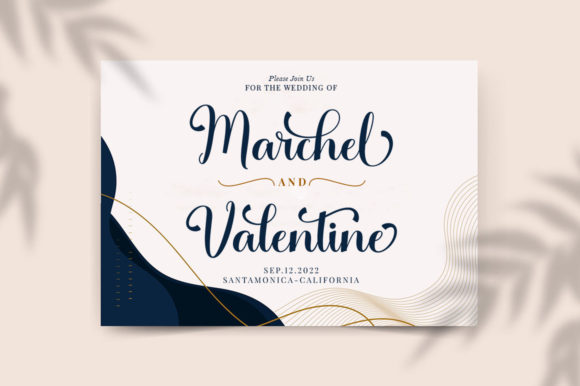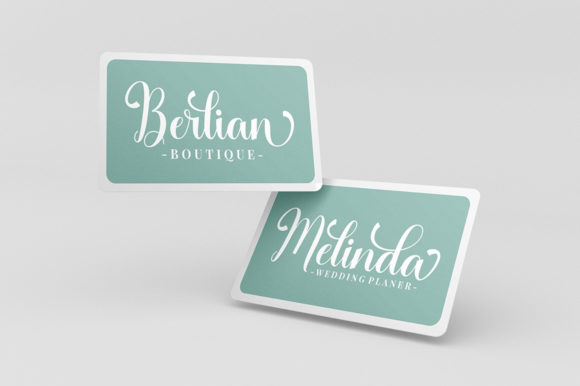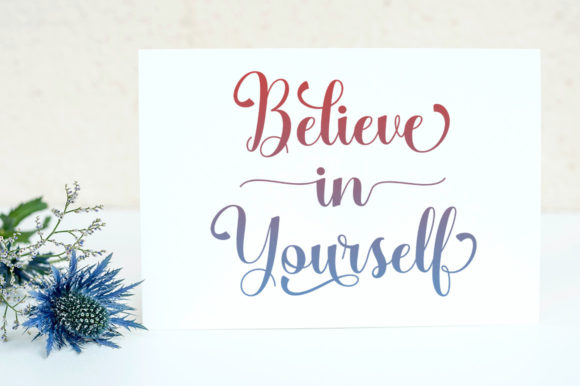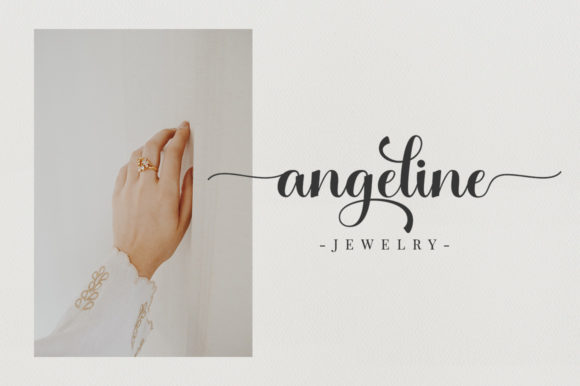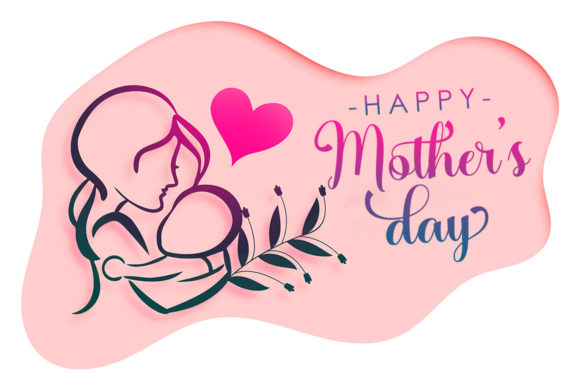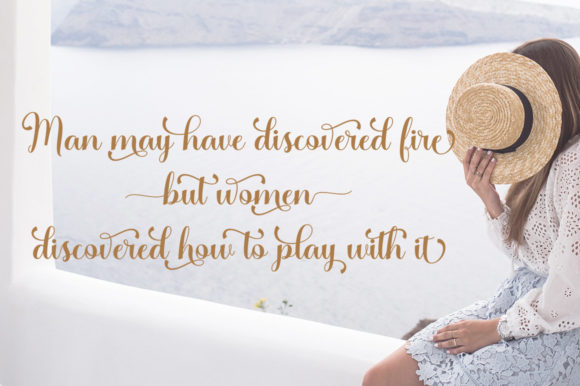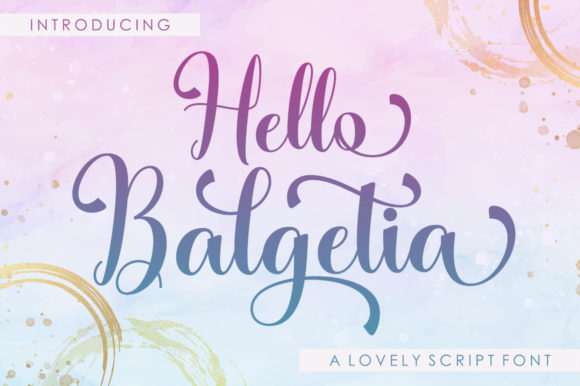
Hello Balgetia Font: Elevate Your Designs with Luxury and Elegance
In the world of typography, fonts play a crucial role in making or breaking a design. A well-chosen font can instantly elevate your project, adding a touch of sophistication and elegance. If you’re on the hunt for a font that exudes luxury and uniqueness, look no further than Hello Balgetia. This ravishing handwritten font is designed to make a stunning impact, perfect for designers and crafters seeking to add a spark of luxury to their creations.
The Unique Charm of Hello Balgetia
Hello Balgetia boasts a distinctive feel that sets it apart from other fonts. Its handwritten style is both elegant and refined, making it an excellent choice for a wide range of design projects. Whether you’re working on a branding campaign, packaging design, or a digital project, Hello Balgetia is sure to make your work stand out. The font’s unique charm lies in its ability to convey a sense of sophistication and luxury, making it perfect for high-end designs.
One of the standout features of Hello Balgetia is its PUA (Private Use Area) encoding. This means that you can easily access all the amazing glyphs and ligatures without any hassle. PUA encoding allows you to unlock the full potential of the font, giving you the creative freedom to experiment with different designs and styles. With Hello Balgetia, you can effortlessly create stunning text arrangements that will leave a lasting impression on your audience.
Hello Balgetia offers endless design possibilities, making it a versatile addition to any designer’s toolkit. You can use it to create:
- Branding materials: Elevate your brand’s visual identity with Hello Balgetia’s luxurious feel.
- Packaging design: Add a touch of elegance to your product packaging and make it stand out on store shelves.
- Digital projects: Use Hello Balgetia to create stunning digital content, such as social media graphics, blog posts, and website headers.
- Stationery and paper goods: Create beautiful stationery, greeting cards, and paper crafts with Hello Balgetia’s unique charm.
Why Choose Hello Balgetia?
With so many fonts available, why choose Hello Balgetia? Here are just a few reasons why this font stands out:
- Unique feel: Hello Balgetia’s handwritten style is unlike any other font, giving your designs a distinctive edge.
- Luxury appeal: The font’s elegant and refined feel makes it perfect for high-end designs and luxury brands.
- PUA encoding: Easy access to glyphs and ligatures means you can focus on creating stunning designs without technical hassle.
- Versatility: Hello Balgetia can be used for a wide range of design projects, from digital content to print materials.
Hello Balgetia is a game-changing font that can elevate your designs to new heights. Its unique feel, luxury appeal, and PUA encoding make it an excellent choice for designers and crafters seeking to add a touch of elegance and sophistication to their work. Whether you’re working on a branding campaign, packaging design, or digital project, Hello Balgetia is sure to make a stunning impact. So why wait? Discover the power of Hello Balgetia and take your designs to the next level!